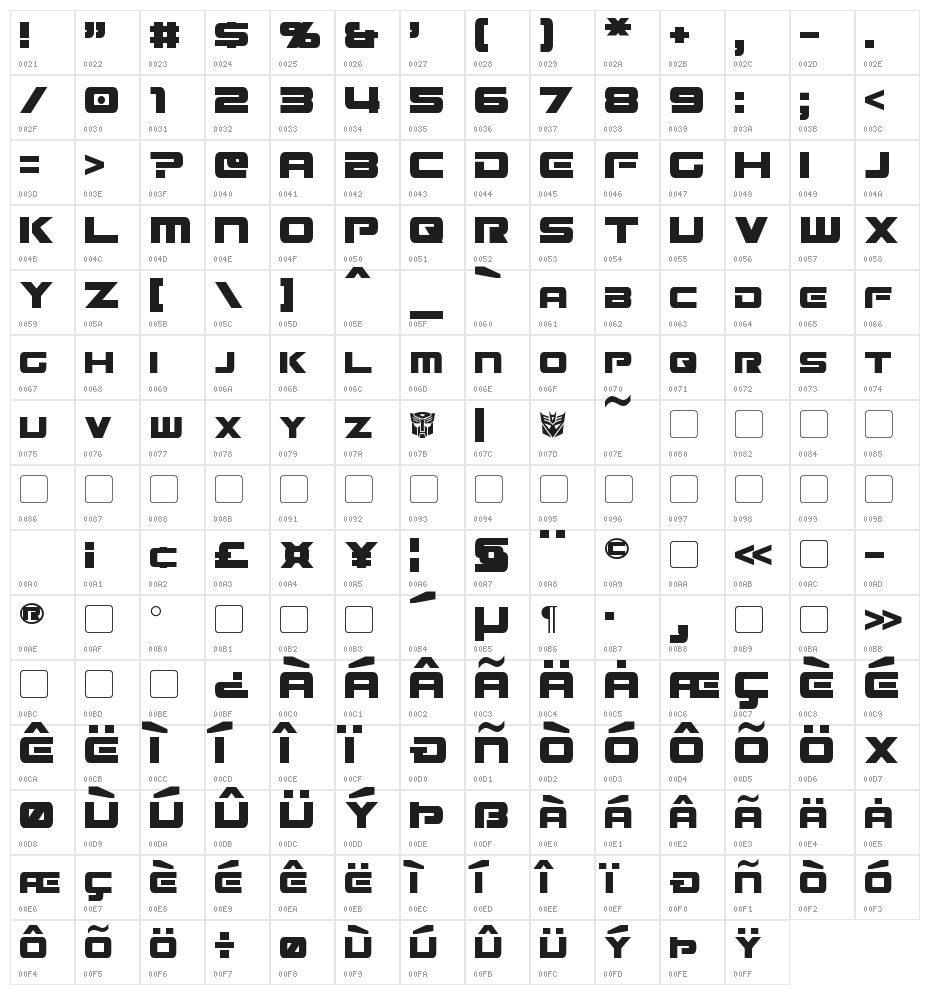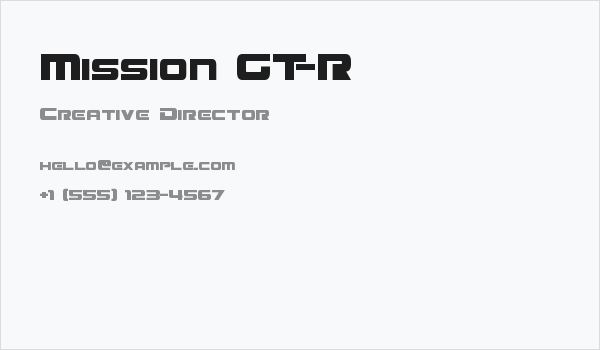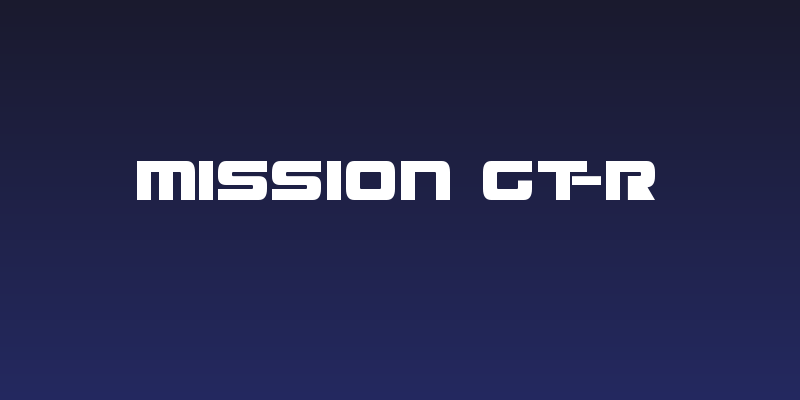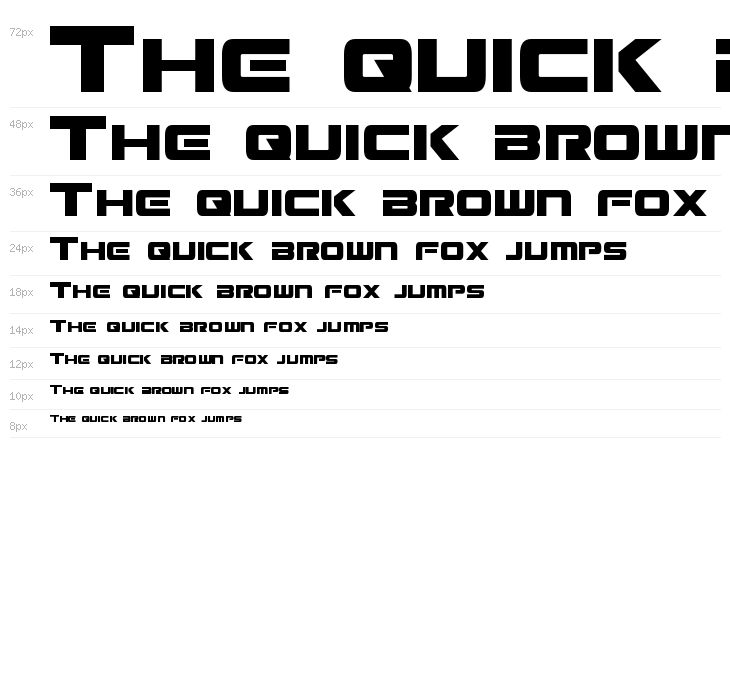
Mission GT-R Font
Mission GT-R Description
This font features a bold, futuristic design with geometric shapes and sharp angles. The characters are uniformly wide, giving a strong and impactful appearance. The uppercase letters have a consistent height and width, while the lowercase letters maintain a similar style, ensuring readability and cohesion. The numbers and special characters follow the same design principles, making them easily distinguishable. The overall style is modern and tech-inspired, suitable for projects that require a bold and assertive typeface.
| Proposed Projects | Ideal for technology branding, video game titles, sci-fi movie posters, and modern advertising. |